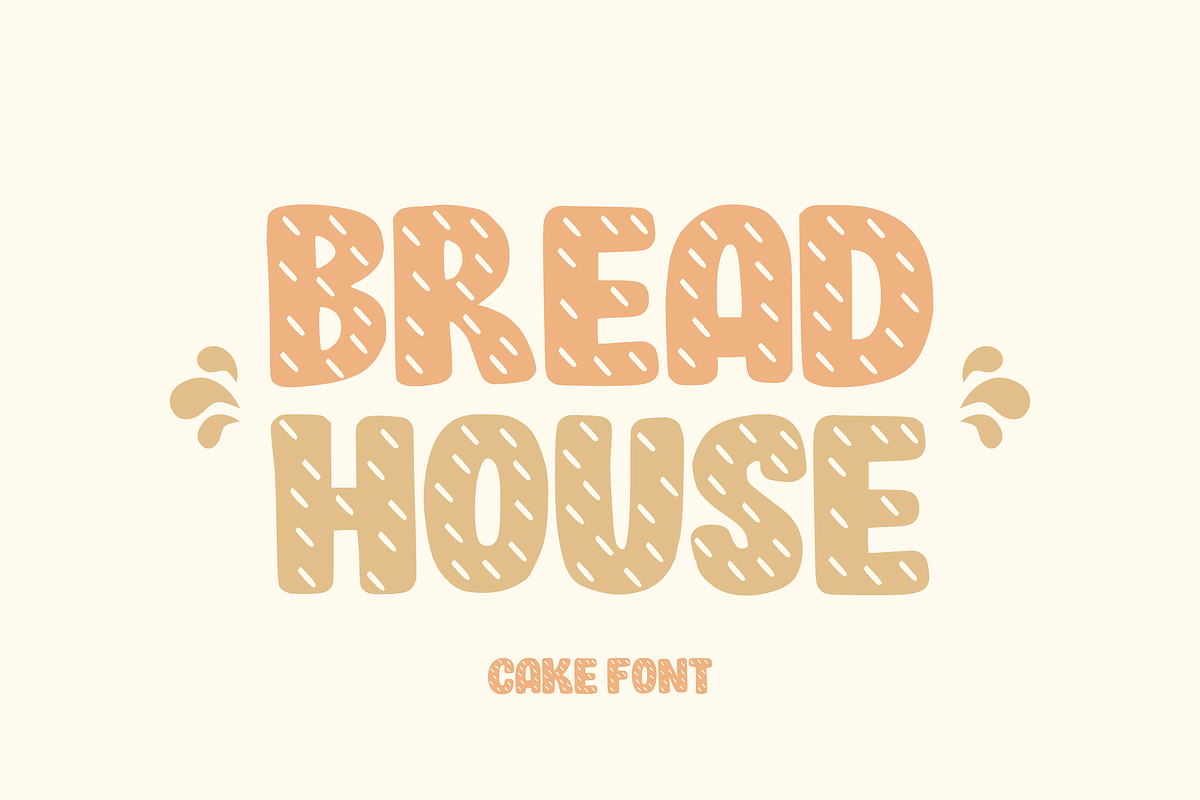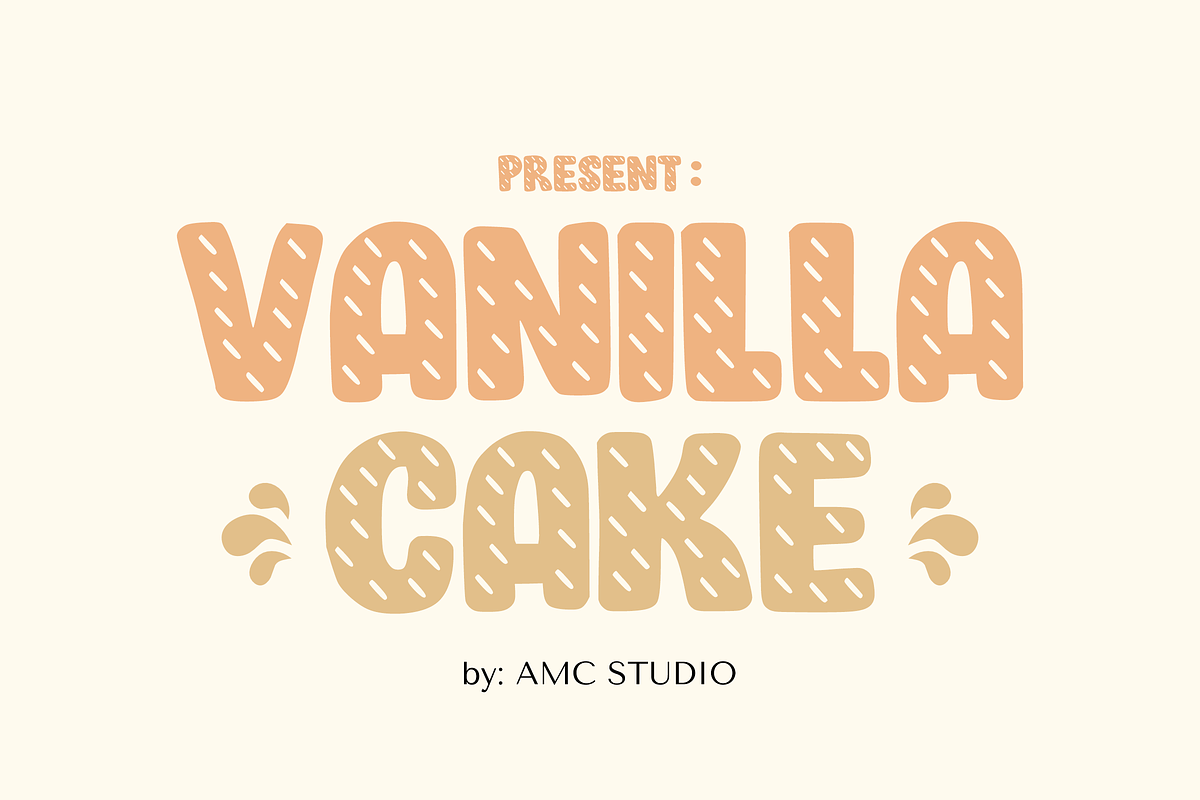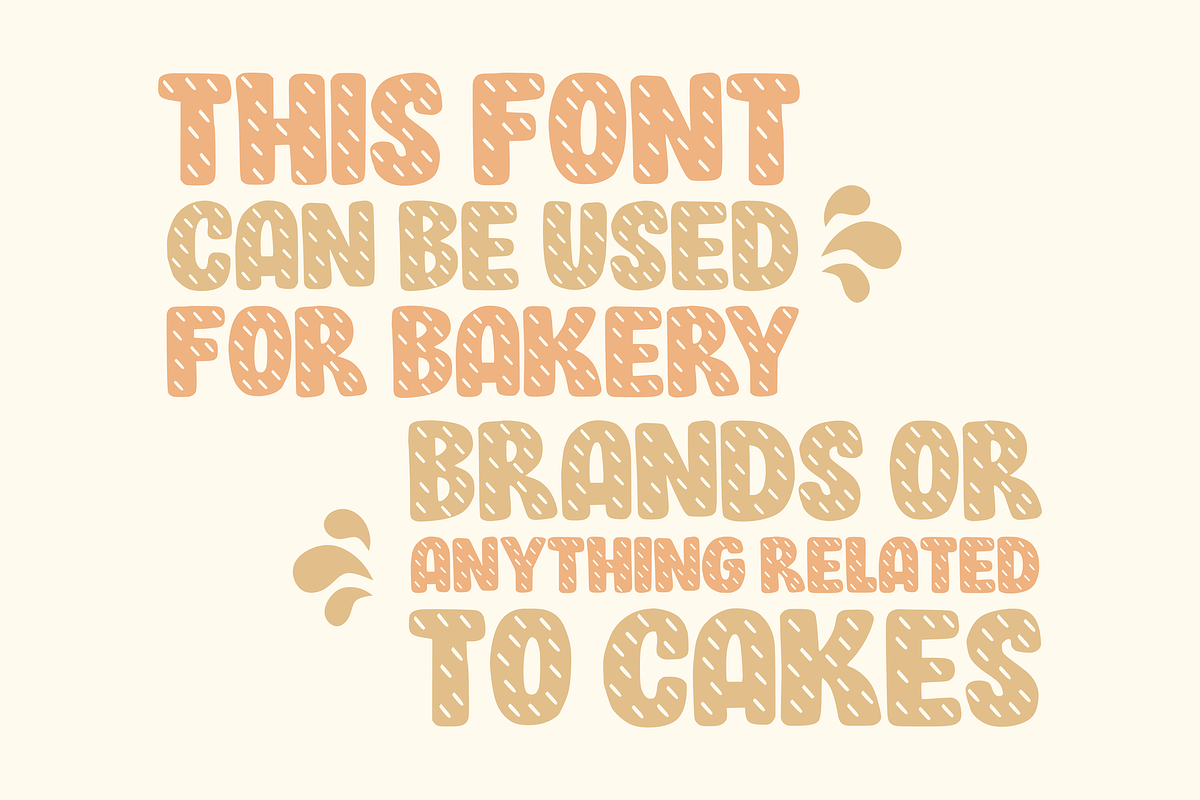
Vanilla Cake - Elegant Font Types
Introducing Vanilla Cake – an inventive font designed with the sweet aura of cake branding in mind. This unique style is brimming with character and versatility, destined to enhance an array of design templates and branding initiatives. It’s a perfect fit for poster creations, magazine layouts, screen printing projects, captivating advertisements, web designs, standout stickers, engaging banners, and artful brochures. With Vanilla Cake, put the icing on your branding ventures and watch your designs truly come to life.